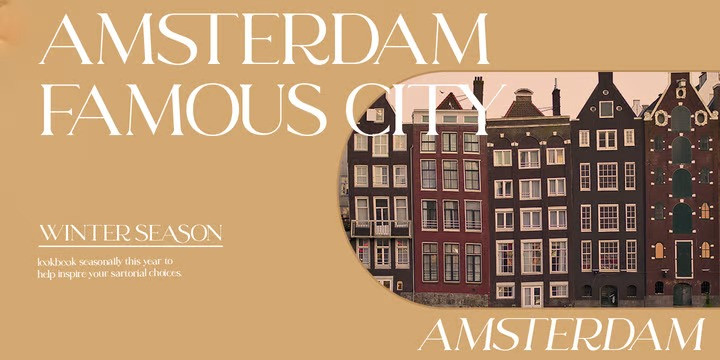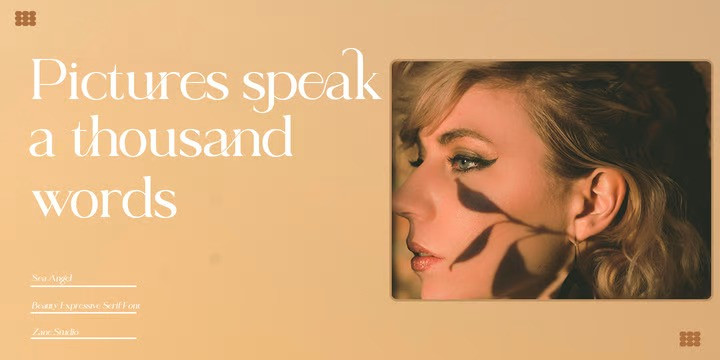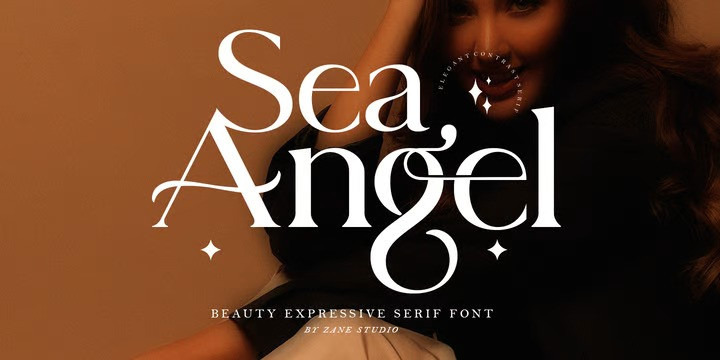
Sea Angel Font
Sea Angel Serif Font Family – Elegant Beauty Expressive Serif Font – Fashion Classy Luxury Font
Sea Angel comes with several binders, so you can combine them to create the perfect typographic design.
The Sea Angel Elegant Serif font is perfect for your upcoming project. Such as luxury logo and branding, classy editorial design, women’s magazine, cosmetic brand, fashion promotion, art gallery branding, museum, architectural history, boutique branding, stationery design, blog design, modern advertising design, invitation card, art quote, home decoration , book titles/covers, special events, and more.